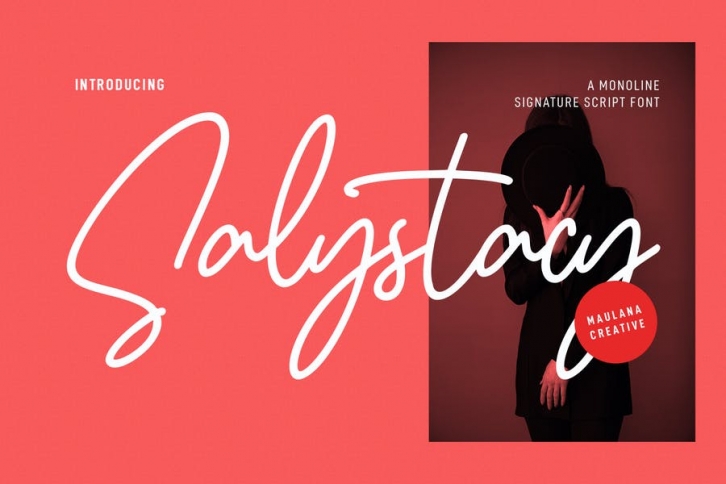
Salystacy Monoline Signature Script Font Download
Salystacy is a fancy handwritten script font. With mono-line stroke, fun character with a bit of ligatures and alternates. To give you an extra creative work. Salystacy font support multilingual more than 100+ language. This font is good for logo design, Social media, Movie Titles, Books Titles, a short text even a long text letter and good for your secondary text font with sans or serif. Make a stunning work with Salystacy font.